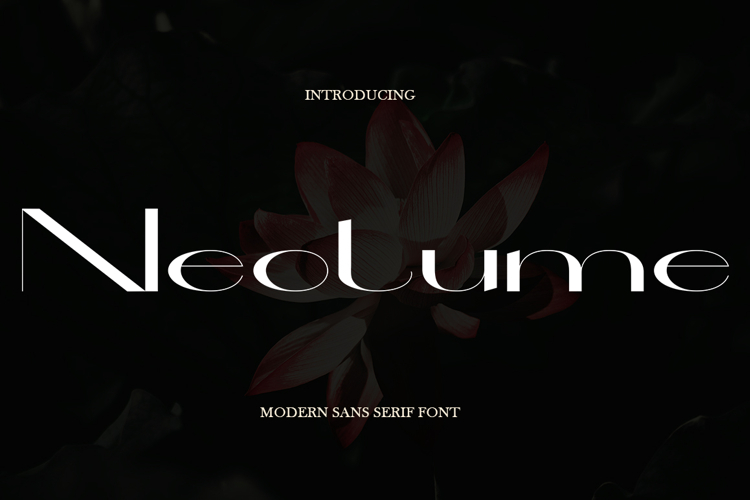
Neolume is a sans serif font with elegant and modern feels. It will be perfectly used for Branding, Logo Design, Lettering, Logotype, Clothing, Poster, magazine, packaging, posters, shopping bags, t-shirts, book covers, photography, special events and other design project.